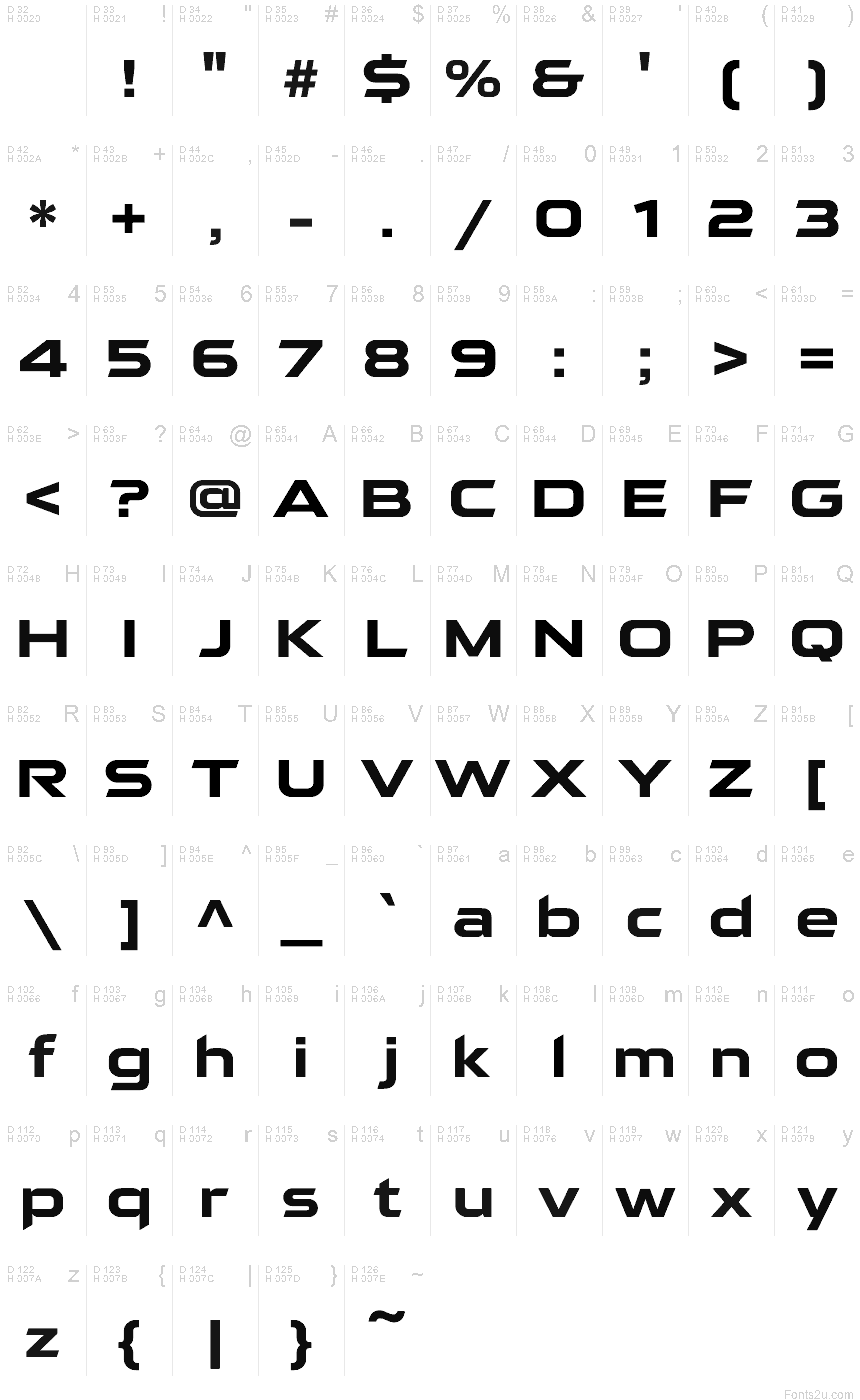
Qaranta Bold
The font supports most European languages, as well as Vietnamese.
I haven't had the time to complete the OpenType coding, but those of you able to view and select individual glyphs (in Adobe Illustrator, for example) will be able to access many more characters including small caps; multiple alternate forms for some letters; and some weird and wonderful ligatures.